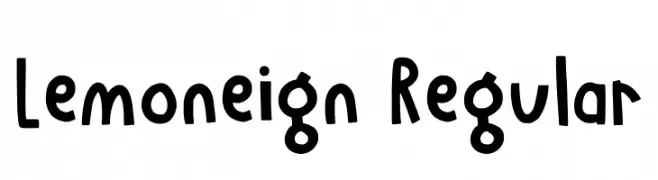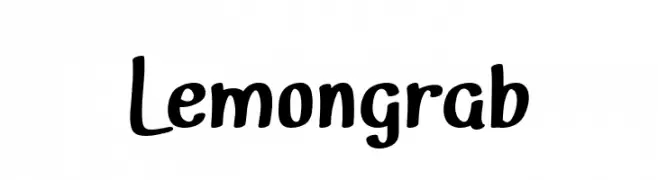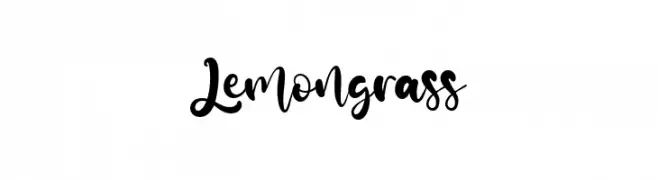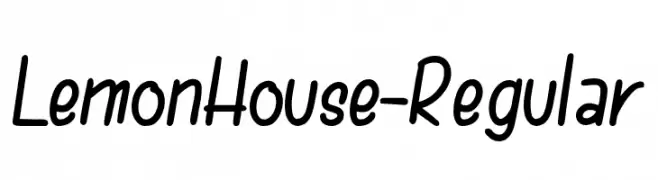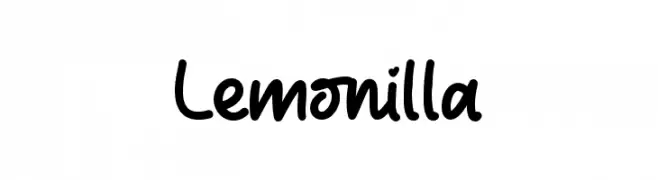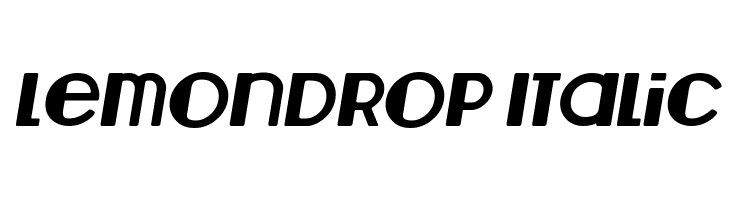
A bold, rounded typeface with a playful and whimsical style.
A bold, italic font with a playful and dynamic style.
A playful, bold italic font with a modern and dynamic style.
A playful, hand-drawn font with a whimsical and informal style.
A playful, hand-drawn font with rounded edges and consistent stroke width.
A playful and elegant script font with flowing, cursive letters.
A lively and expressive script font with playful, cursive strokes.
A playful, hand-drawn font with irregular, artistic strokes.
A playful, casual handwritten font with smooth curves and consistent strokes.
A bold, handwritten font with a playful and casual style.